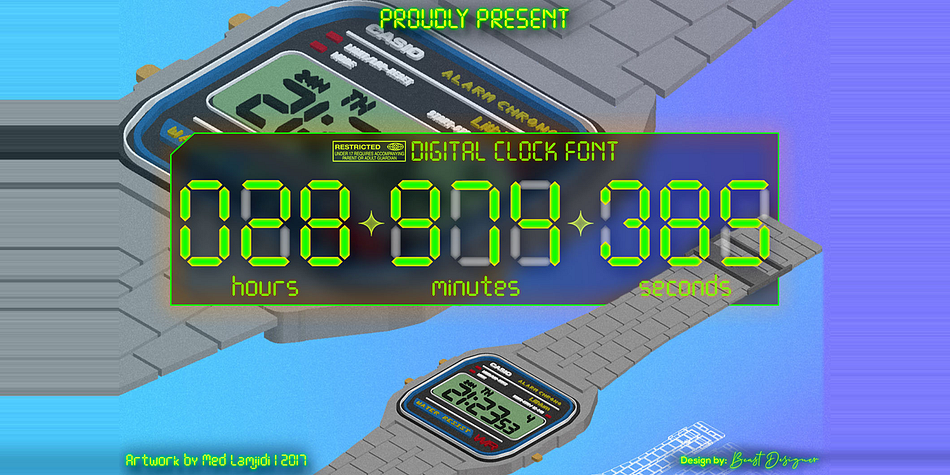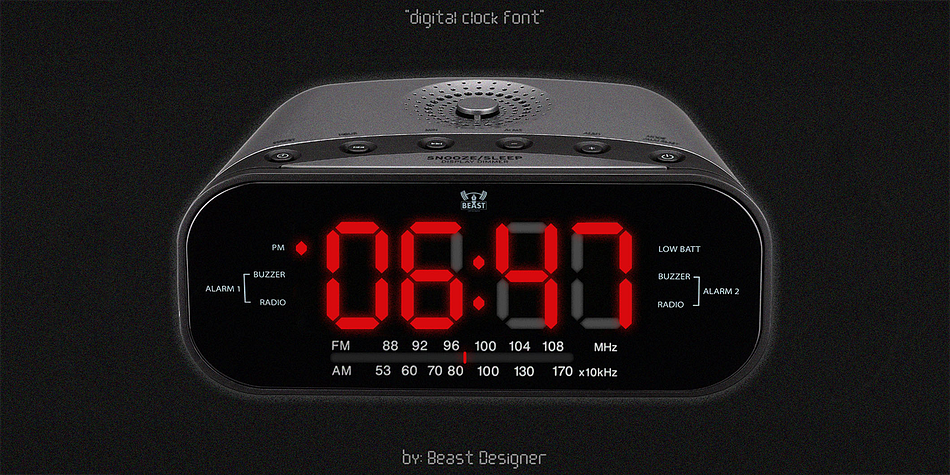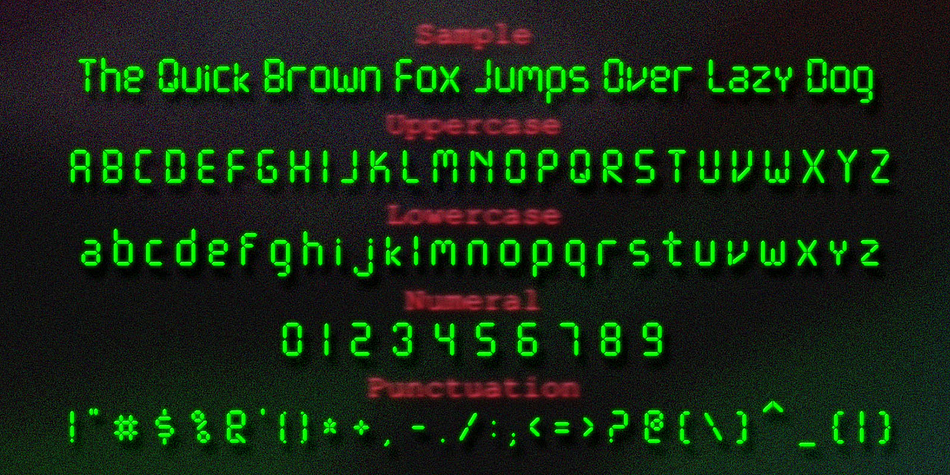
Digital Clock
Designed by Mohammed Lamjidi, Digital Clock is a display font family published by Beast Designer.
Digital clock font is a typeface designed specifically for use in digital alarm clocks and other timekeeping devices. It is characterized by clear, legible numerals and symbols, and a modern, minimalistic design that is easy to read at a quick glance.